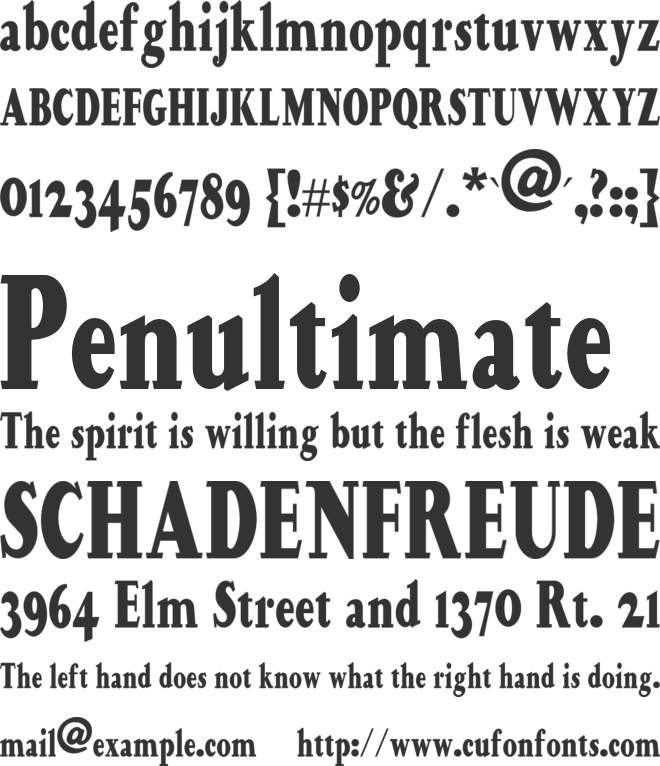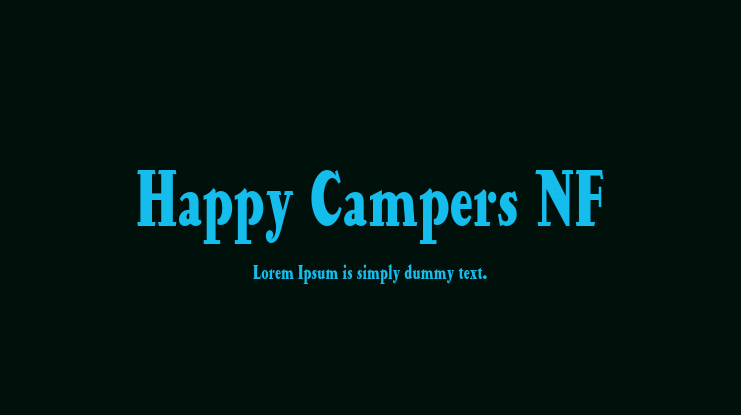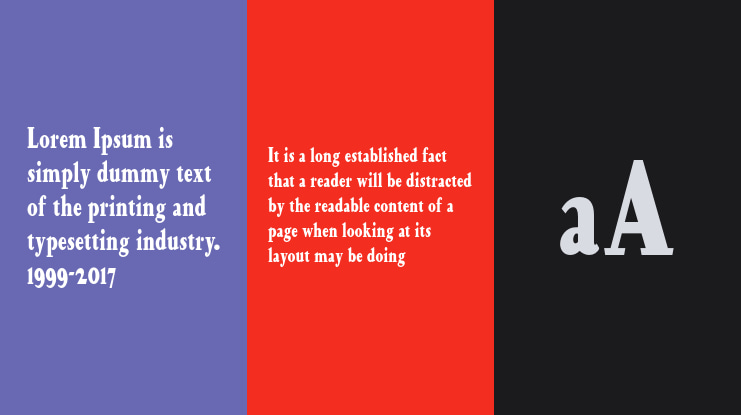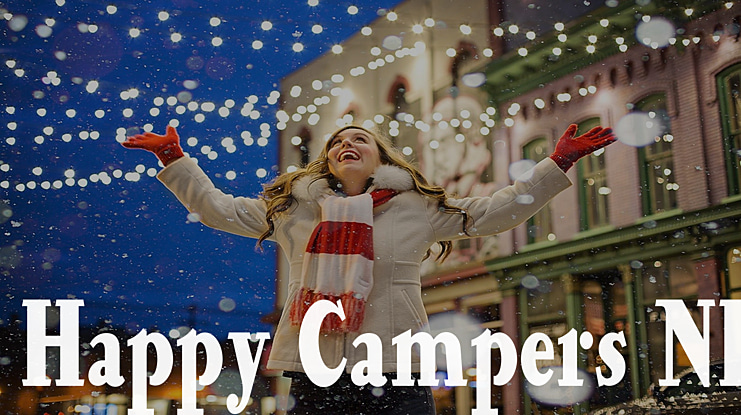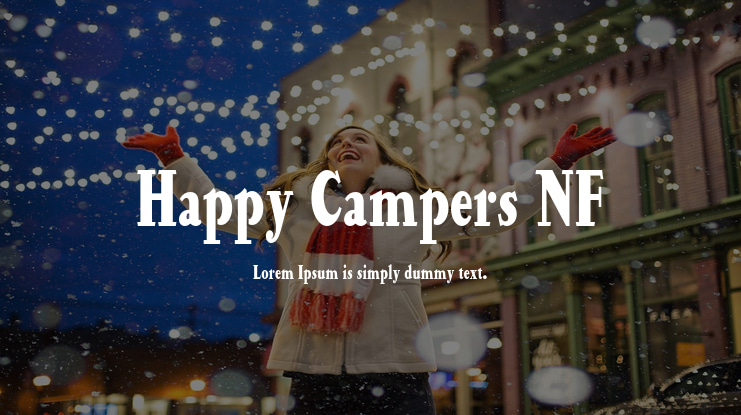
Happy Campers NF Font
Nick Curtis
This font is lettering artist Harold Holland Day’s take on the venerable Cooper Bold, and gets its name from its extensive use in travel ads of the 1930s.